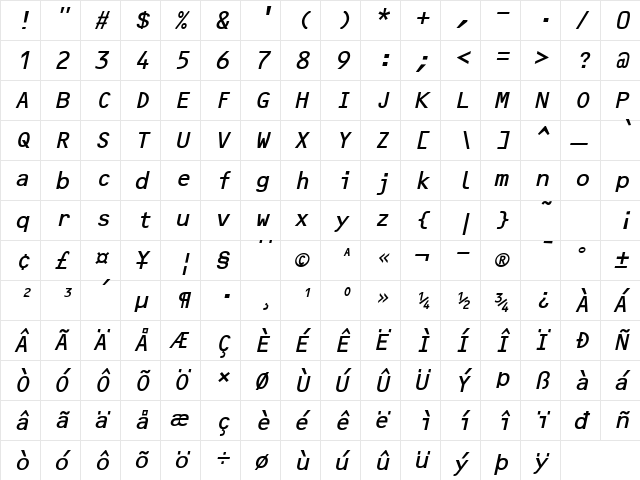
MicroscanB Oblique
Design Context for MicroscanB Typeface
MicroscanB offers clean, dependable letterforms without strong stylistic allegiance, making it a practical choice for designers who need flexibility. The slanted form adds forward momentum and visual energy.